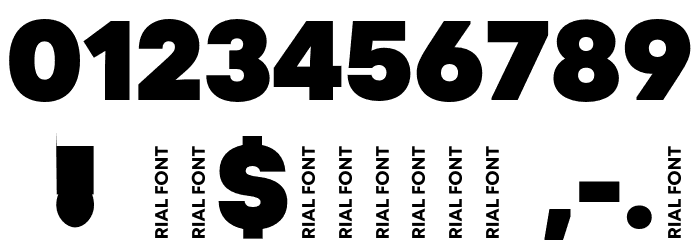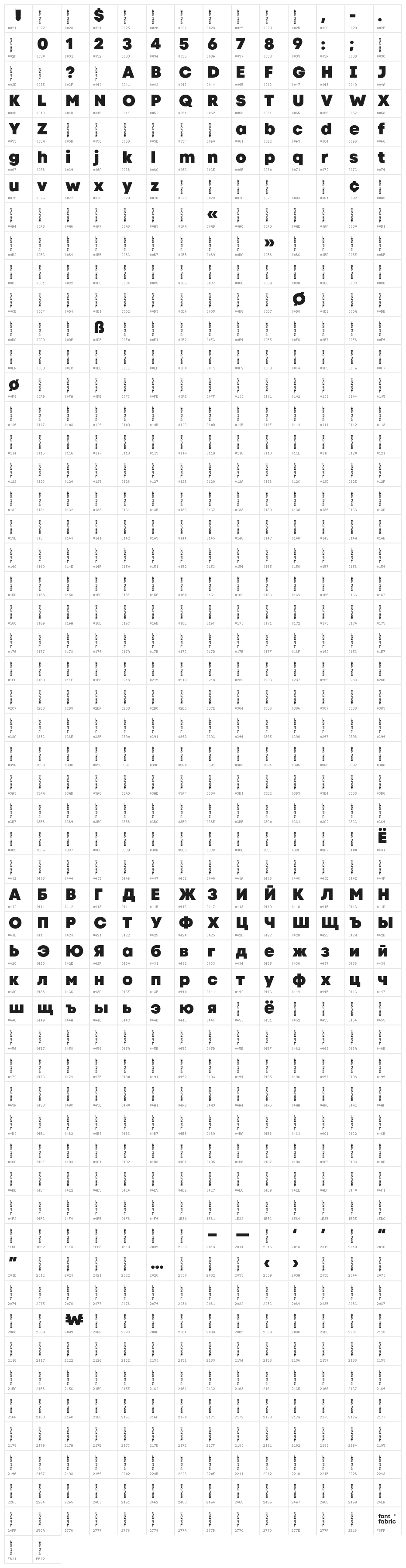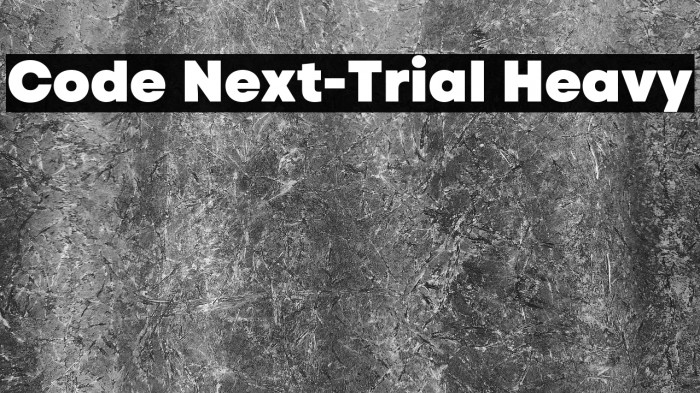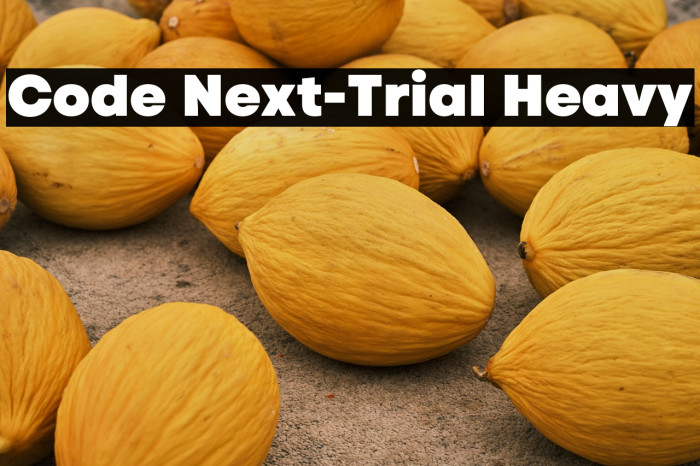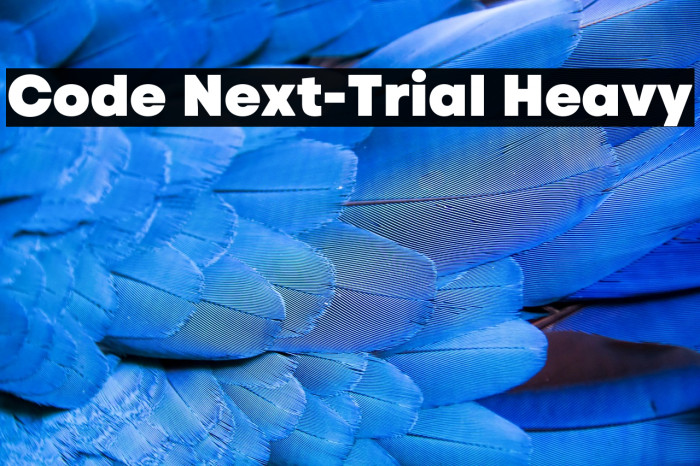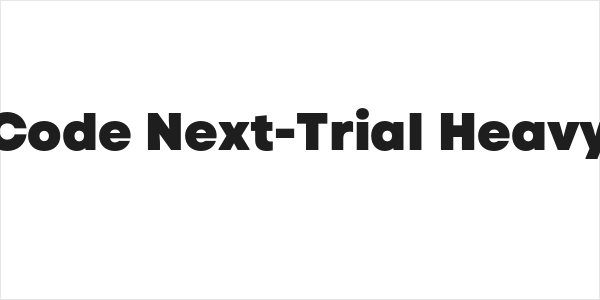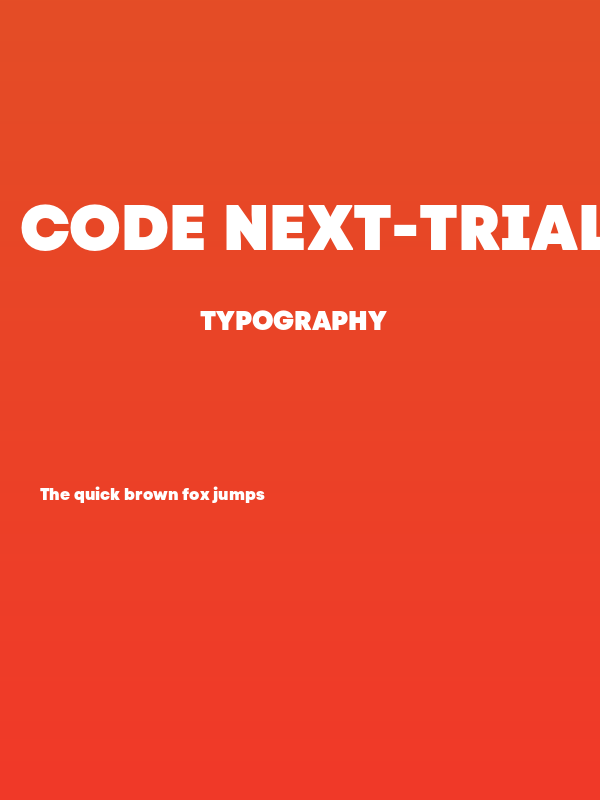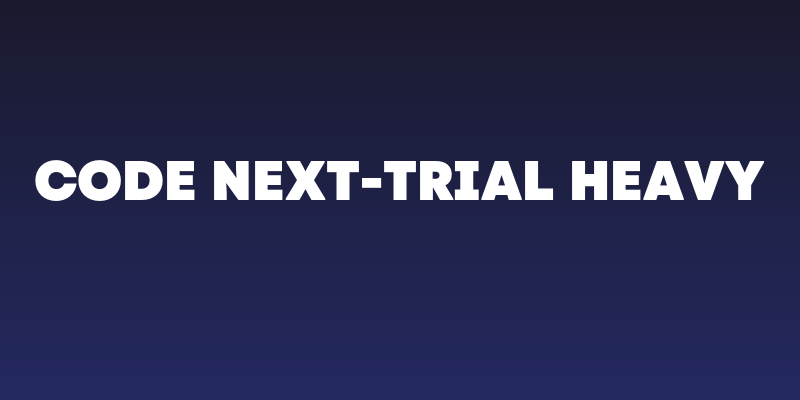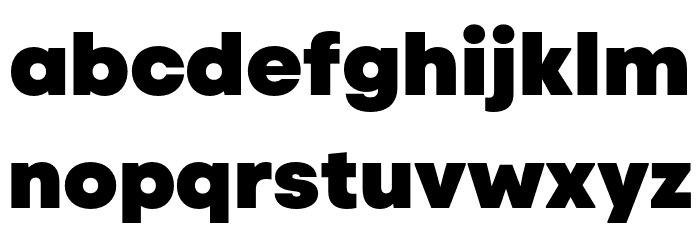
Code Next-Trial Heavy Font
Code Next-Trial Heavy Description
This font features a bold and impactful design with thick, uniform strokes that create a strong visual presence. The characters are sans-serif, providing a clean and modern appearance. The uppercase and lowercase letters maintain consistent proportions, ensuring readability and balance. The numbers are equally bold, making them stand out effectively. Special characters are designed with the same weight and style, ensuring uniformity across all glyphs. The overall aesthetic is powerful and assertive, suitable for making a statement in any design.